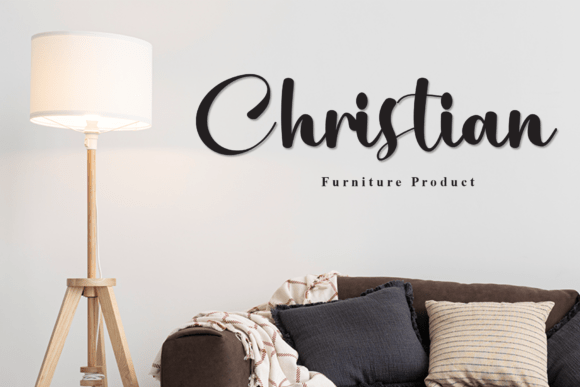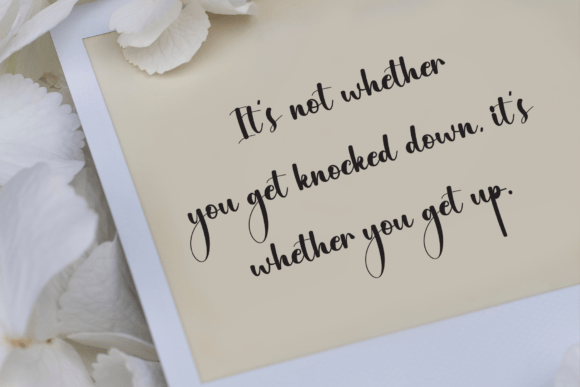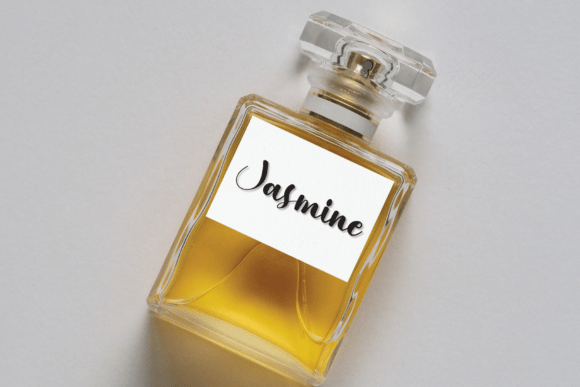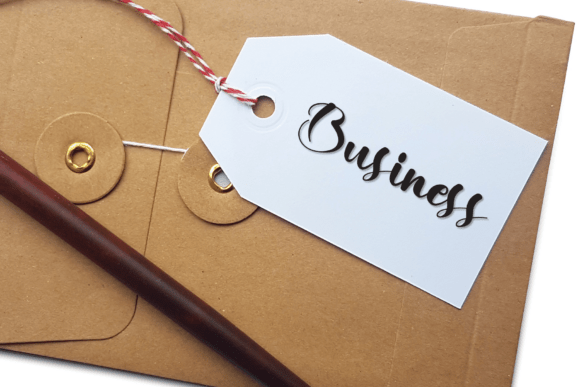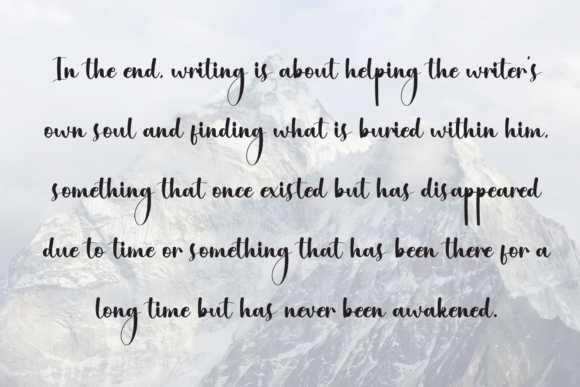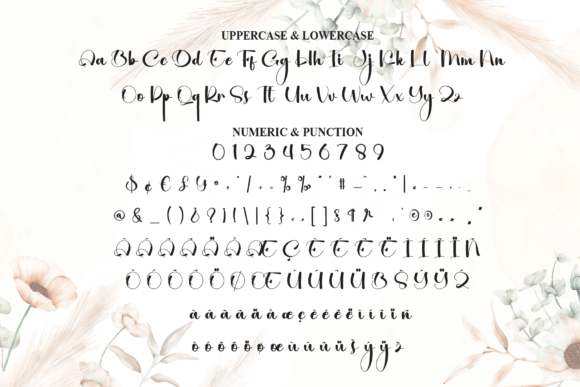
The Agatha Font: Elevating Designs with Elegance and Sophistication
I still remember the time I was working on a project for a luxury brand, tasked with creating an invitation that exuded high-end sophistication. As I scrolled through font after font, nothing seemed quite right – until I stumbled upon Agatha. This stunning script font captured the essence of elegance and contemporary charm, instantly elevating my design to new heights. If you’re a designer, crafter, or creative hobbyist looking for a font that adds a refined touch to your work, you’re in the right place.
A Personal Review of Agatha Font
- ✨ Elegant and fluid strokes: Agatha’s carefully crafted letterforms make it a joy to work with, adding a touch of sophistication to any design.
- ✅ Versatile and adaptable: Whether you’re designing a logo, invitation, or social media graphic, Agatha’s natural flow and polished details make it an excellent choice.
- 💫 Contemporary charm: This font seamlessly blends traditional calligraphy with modern elements, making it perfect for designers looking for a fresh take on classic elegance.
While Agatha is an exceptional font, there are a few minor considerations to keep in mind:
- 🤔 Limited use in body text: Due to its script nature, Agatha is best suited for headlines, titles, and short paragraphs. For longer texts, a serif or sans-serif font might be more suitable.
Agatha was designed with the intention of capturing the essence of hand-drawn calligraphy with a modern twist. Inspired by the flowing scripts of the past, the designer aimed to create a font that would bring elegance and sophistication to contemporary designs. While the real backstory might be fictional, it’s clear that Agatha’s creation was driven by a passion for beautiful typography and a desire to make it accessible to designers and creatives worldwide.
Q: What makes Agatha suitable for logos and branding?
A: Agatha’s elegant and contemporary design makes it perfect for logos and branding, as it instantly conveys a sense of sophistication and refinement.
Q: Can I use Agatha for body text?
A: While Agatha is primarily designed for headlines and titles, it can be used for short paragraphs. However, for longer texts, a serif or sans-serif font might be more readable.